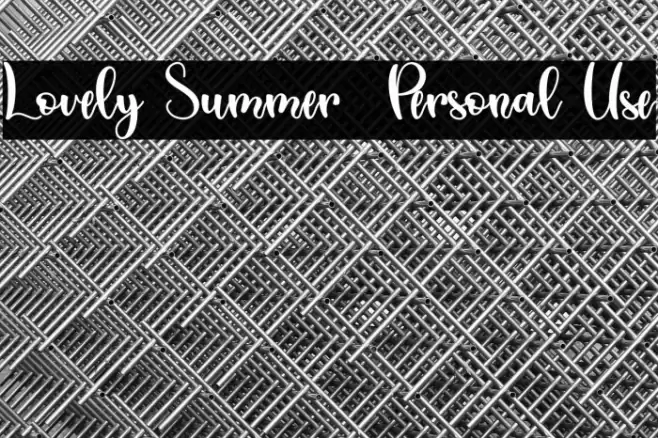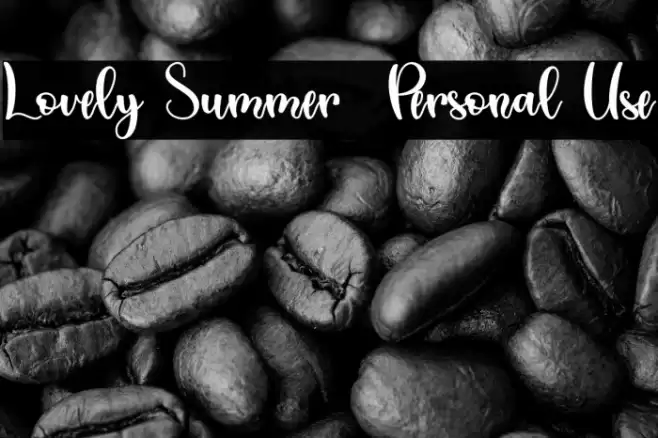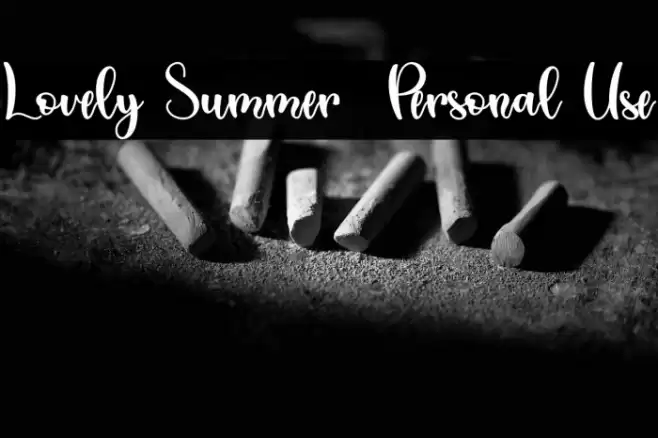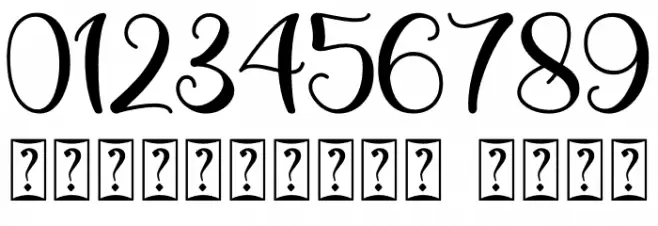
Lovely Summer - Personal Use Font
Lovely Summer - Personal Use Description
This font features a playful and elegant script style with a handwritten appearance. The uppercase letters are bold and flowing, with a distinct loop and curve that adds a whimsical touch. The lowercase letters maintain a consistent style, with smooth transitions and a slightly slanted orientation, enhancing the casual yet sophisticated look. The numerals are well-integrated, matching the overall aesthetic with their rounded and flowing forms. This font exudes a sense of creativity and warmth, making it ideal for projects that require a personal and inviting feel.
A playful and elegant script font with a handwritten style from Uncategorized fonts.
- Proposed Projects: Ideal for wedding invitations, greeting cards, branding, and social media graphics.
- Use Case: Logos, Headlines, Invitations